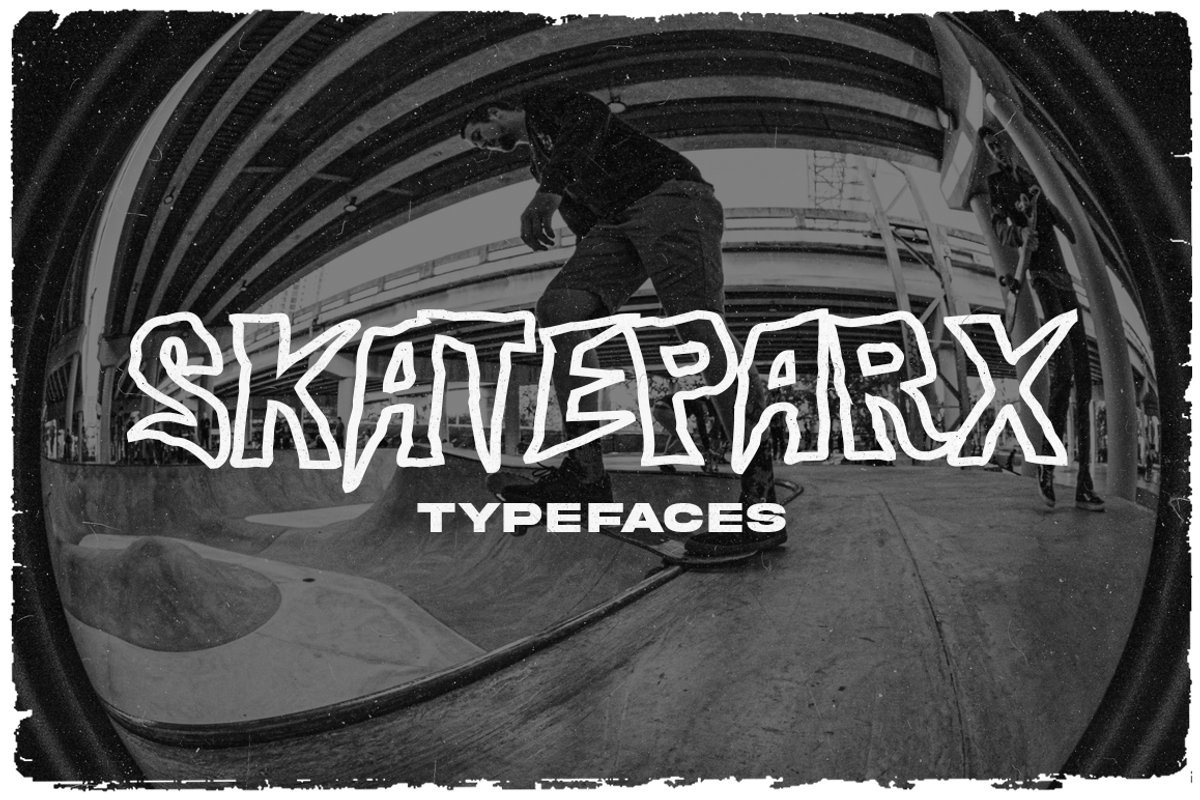
Skateparx Font Free Download is a bold and edgy typeface inspired by urban culture, streetwear, and the raw energy of skateparks. With its rugged angles and rebellious style, this font is perfect for t-shirt designs, skate brand logos, poster art, stickers, and anything that needs a dose of street-style attitude.
Skateparx blends graffiti influence with structured letterforms to create a unique visual identity that’s both bold and readable. Whether you’re designing for a skate brand or a youth-focused event, this font delivers authenticity and impact. Skateparx Font Free Download gives you the chance to test it out in personal projects before purchasing a commercial license.
Drop into your next design with Skateparx — the typeface that rides with style and confidence.